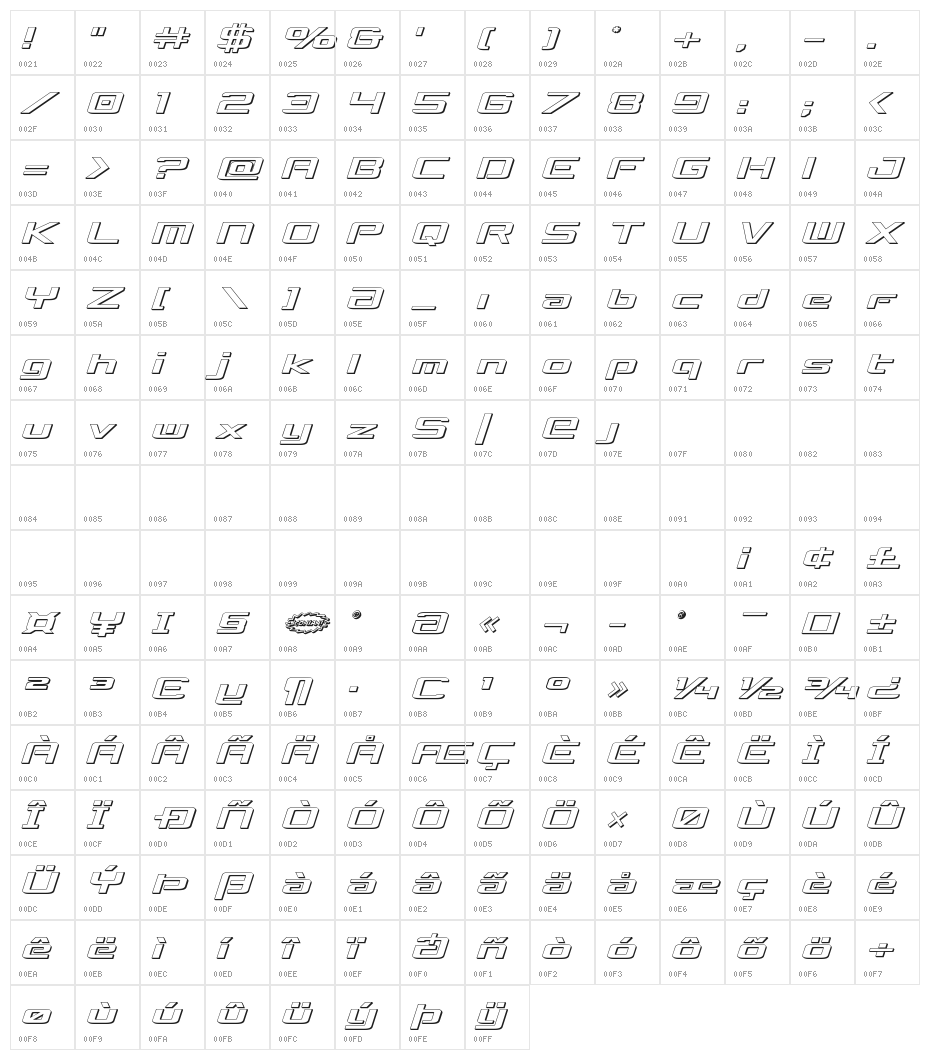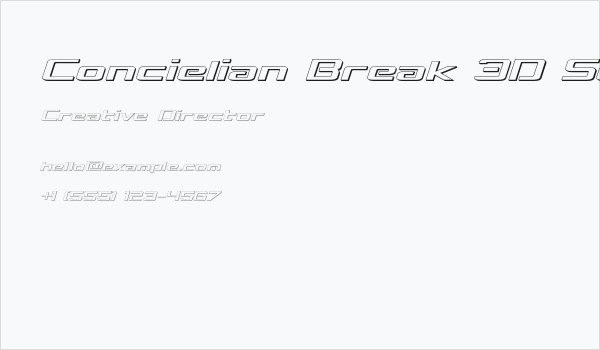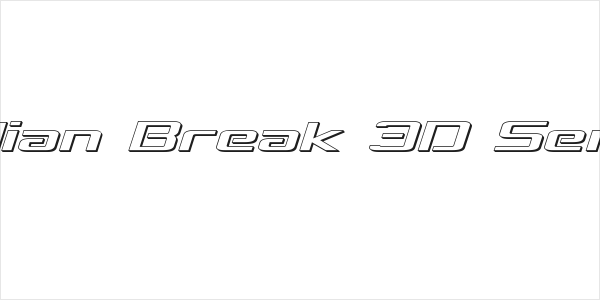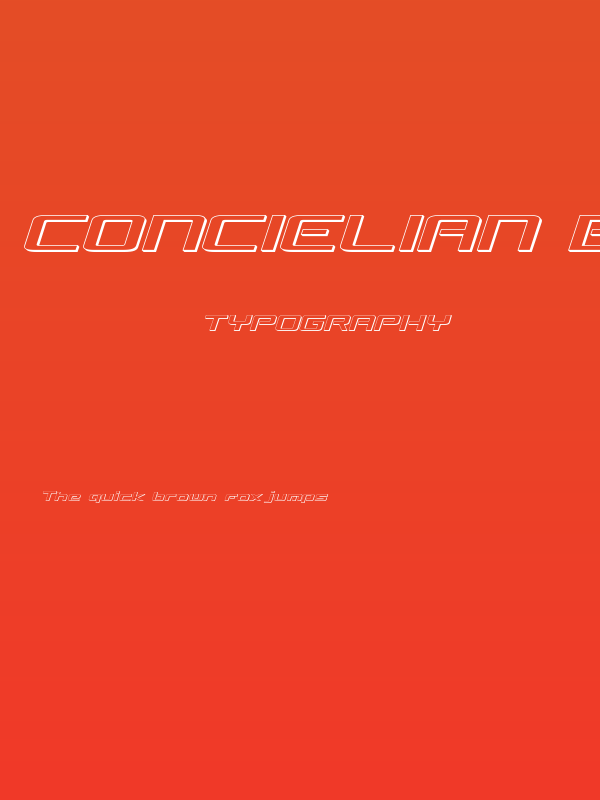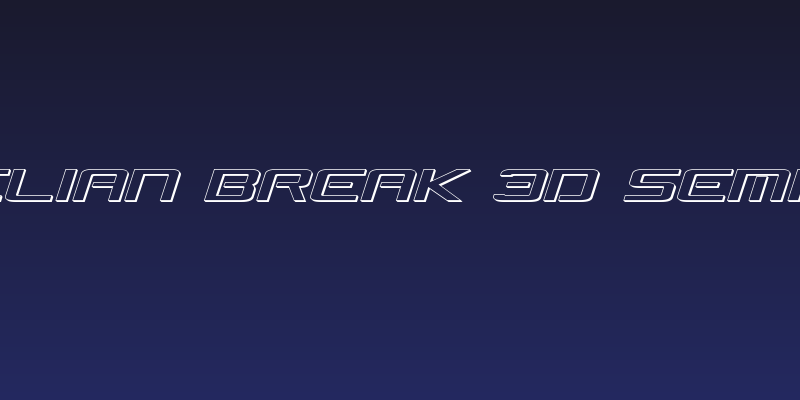
Concielian Break 3D Semi-Italic Font
Concielian Break 3D Semi-Italic Description
This font features a modern, three-dimensional design with a semi-italic slant, giving it a dynamic and futuristic appearance. The characters are outlined, creating a hollow effect that enhances the 3D illusion. The uppercase and lowercase letters maintain a consistent style, with angular, geometric shapes that convey a sense of precision and technology. The numerals and special characters follow the same aesthetic, ensuring uniformity across all glyphs. The font's unique style makes it stand out, suitable for projects that require a bold and innovative look.
| Proposed Projects | Ideal for tech-related branding, futuristic posters, video game titles, and innovative product packaging. |